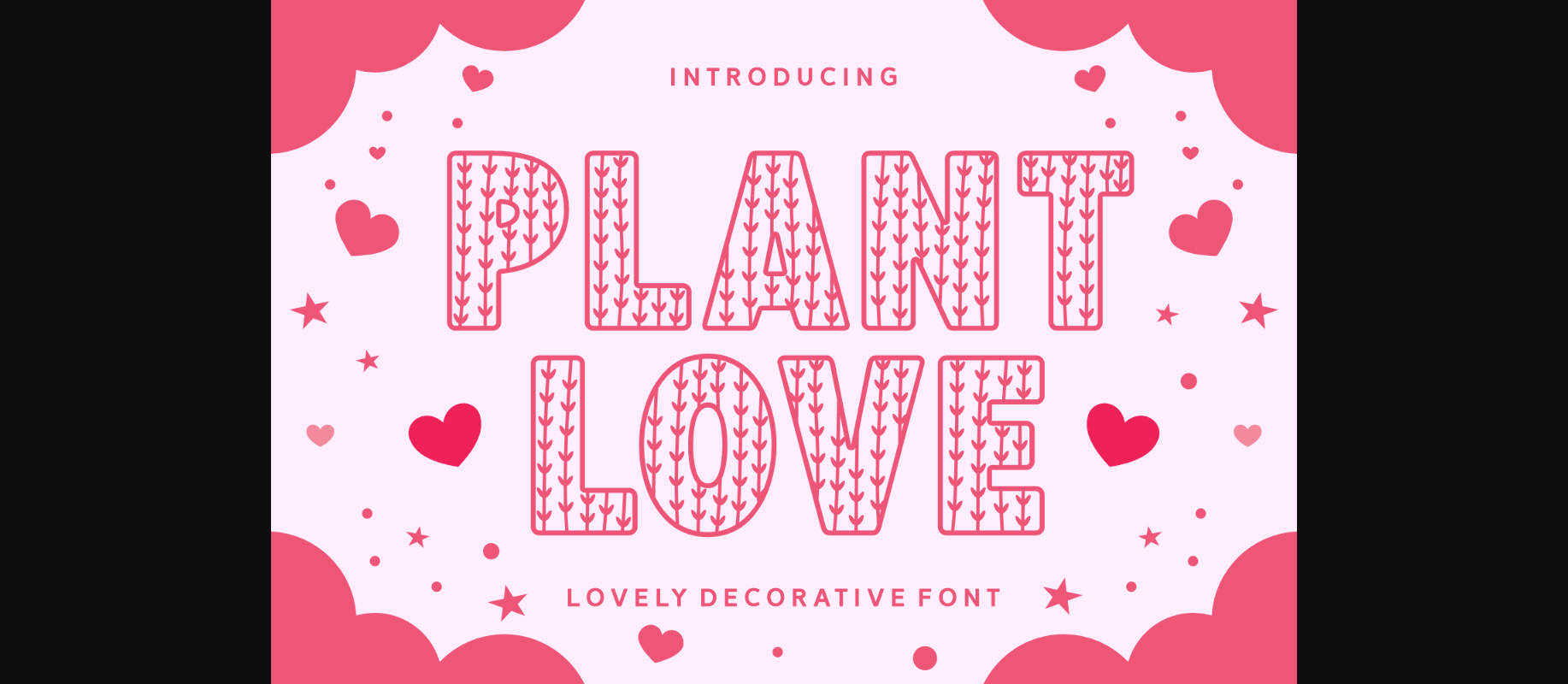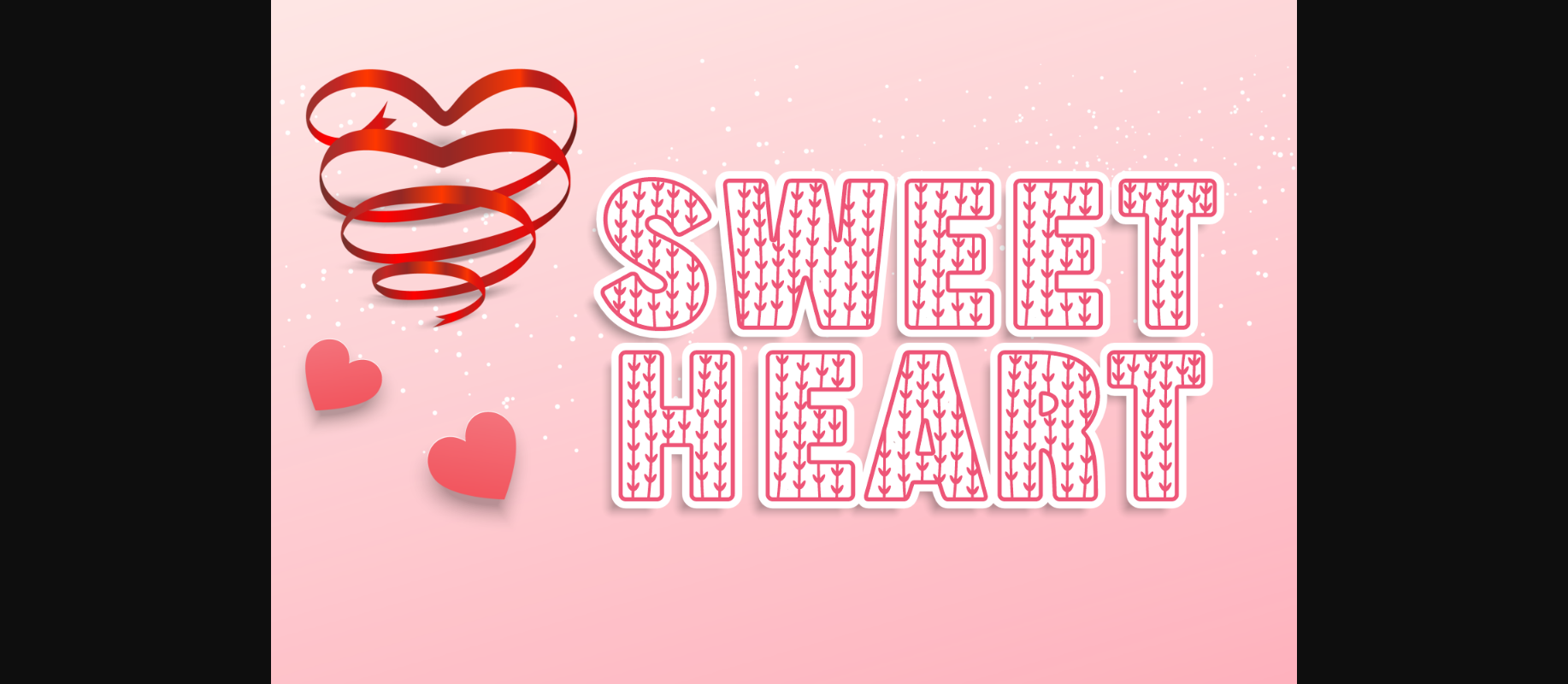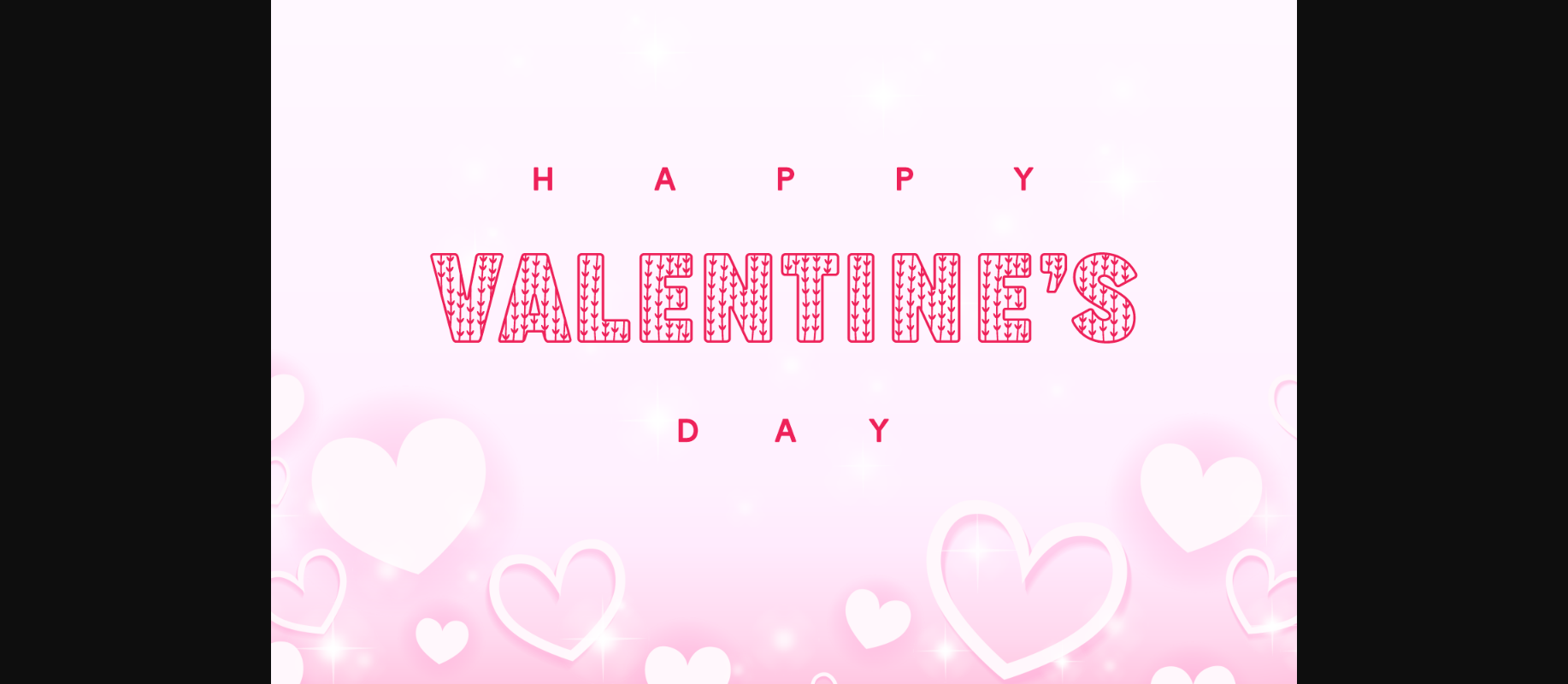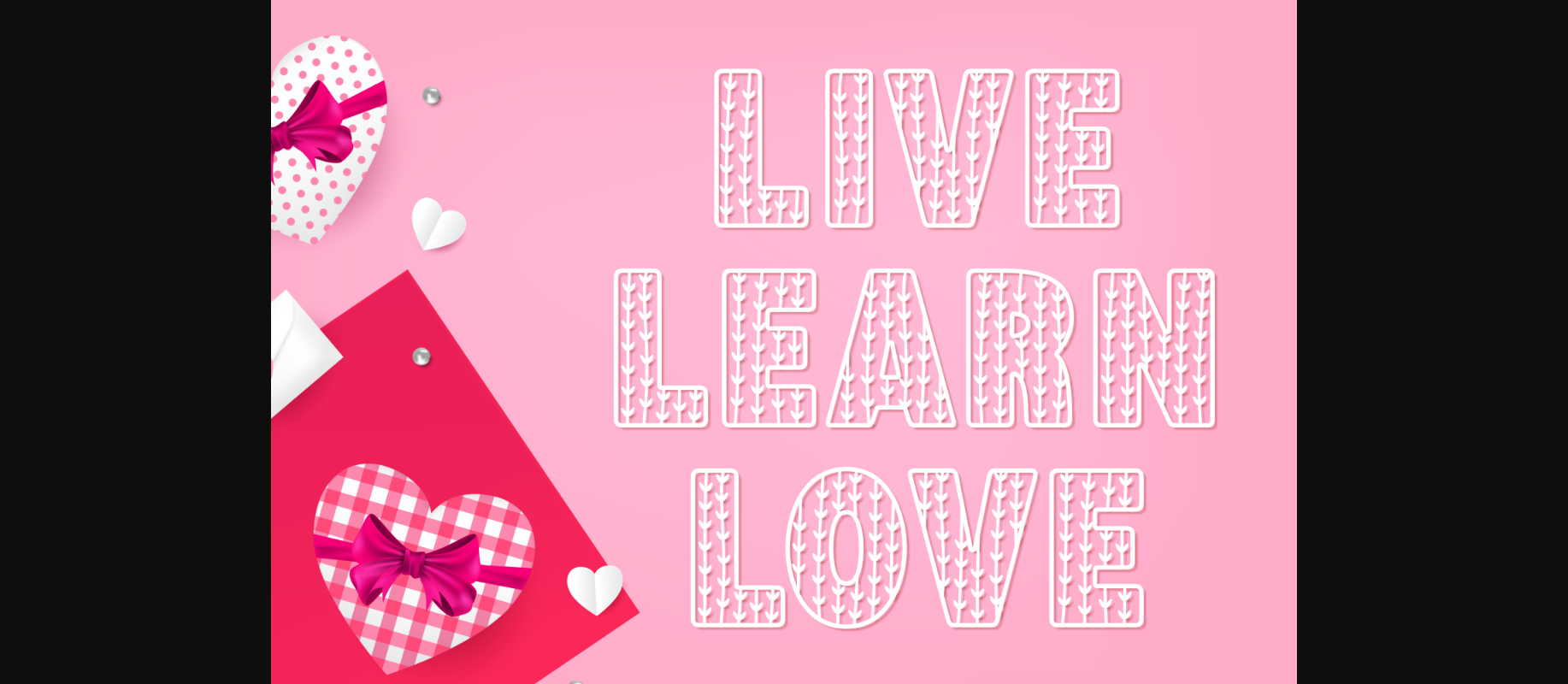
About Plant Love Font
Plant Love is a cute and captivating decorative font. Embellished with lovely little heart doodles, this font is perfect for romantic designs such as Valentine’s day invitations, cards, fabric prints, posters, flyers, and more.